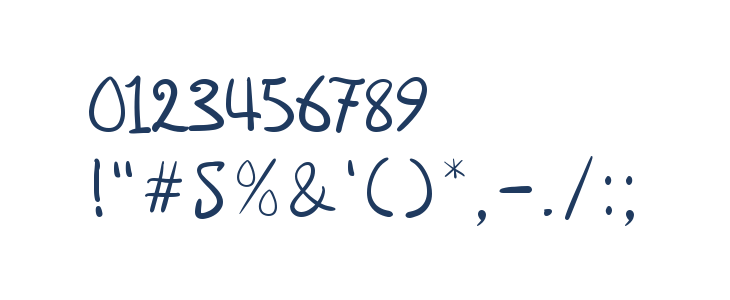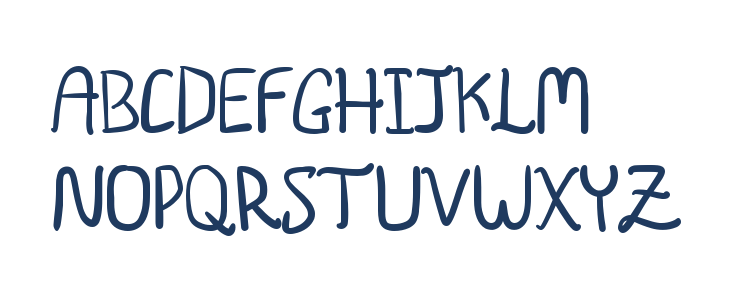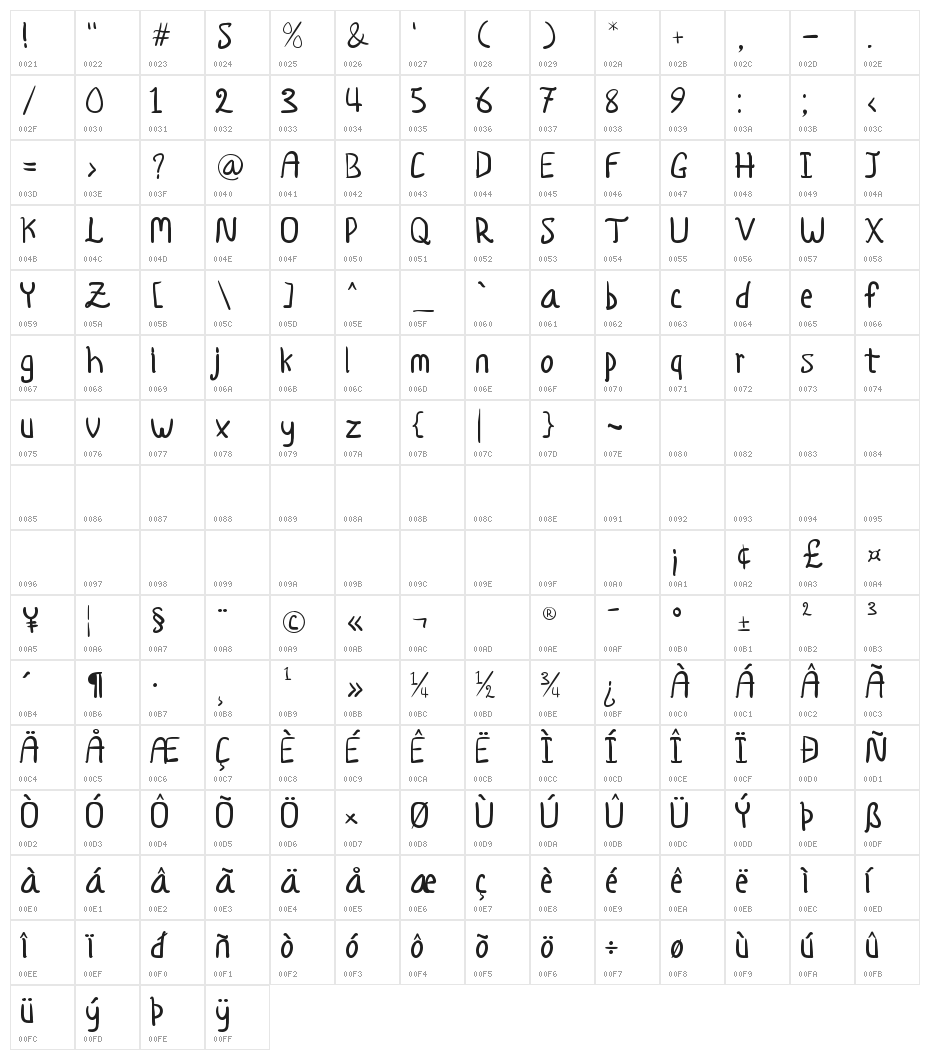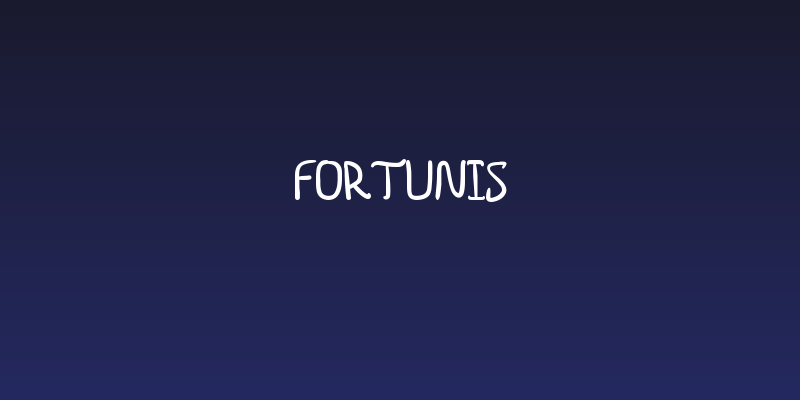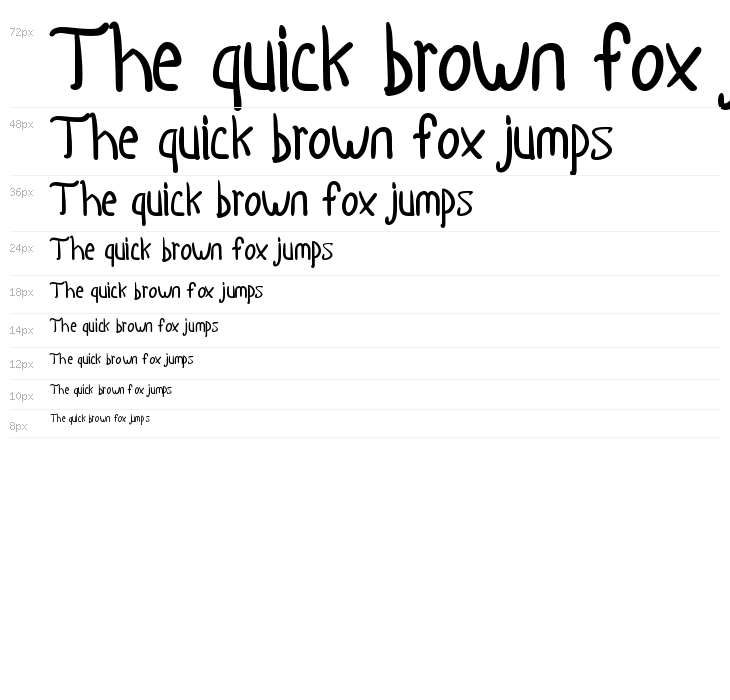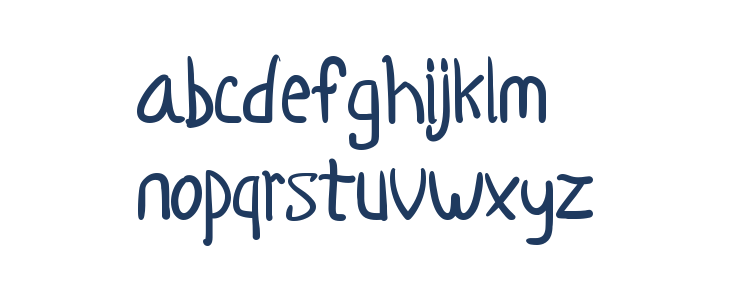
Fortunis Font
Fortunis Description
A playful, rounded handwritten typeface with irregular strokes and a casual, friendly appearance. The characters are slightly uneven, mimicking natural handwriting, with open counters and consistent stroke width.
| Overall Style | Playful, Casual, Handwritten |
| Use Case | Informal headlines, childrenΓ’β¬β’s content, friendly branding, posters. |
| Proposed Projects | ChildrenΓ’β¬β’s books, greeting cards, informal posters, educational materials, playful branding. |